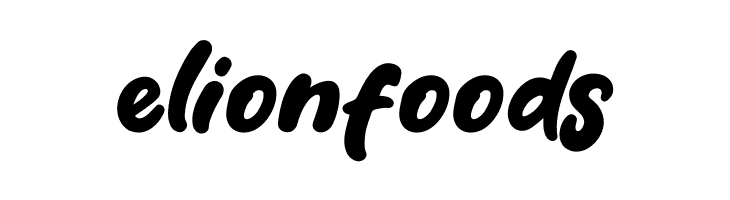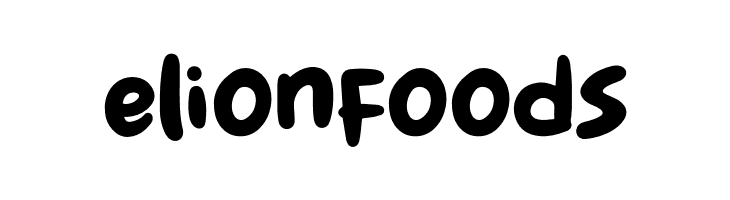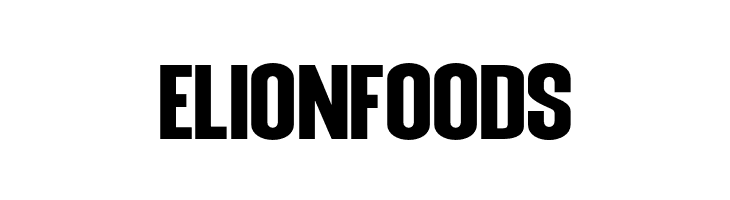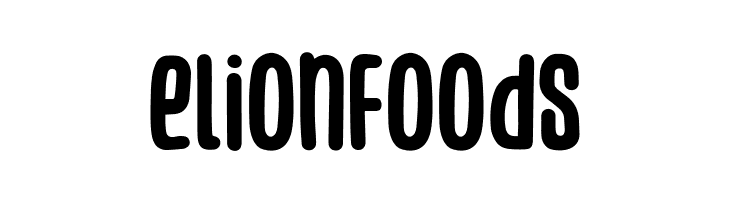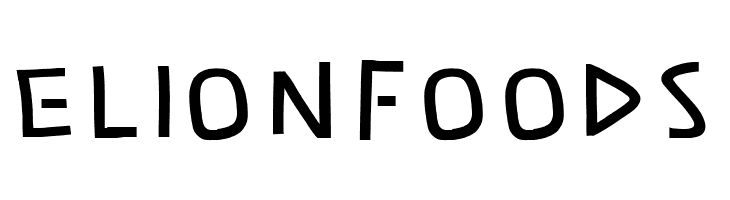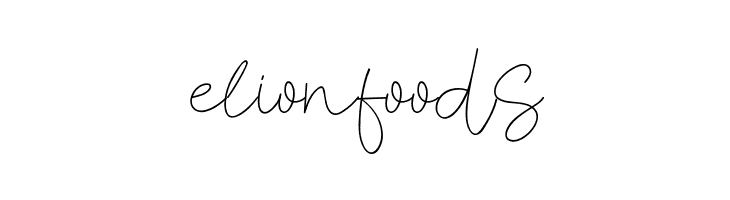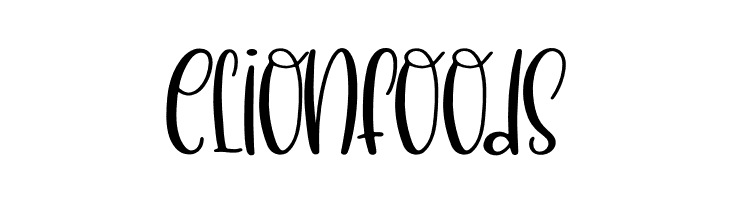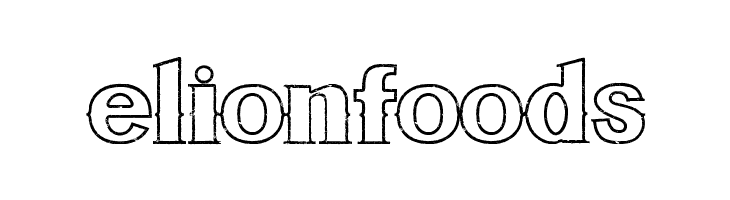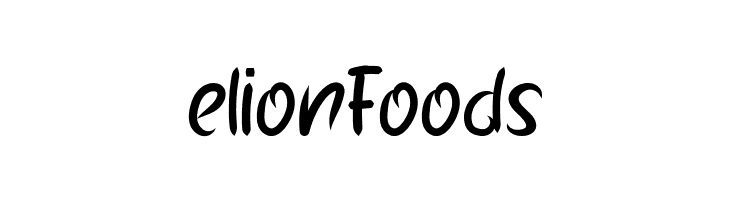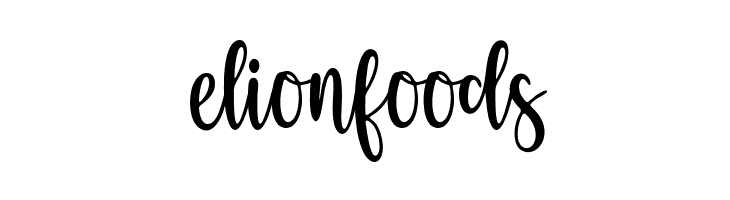
A bold, expressive script font with fluid, interconnected strokes.
A playful, bold font with rounded, bubbly characters and a hand-drawn feel.
A bold, modern font with strong lines and wide spacing.
A bold, playful font with rounded edges and a whimsical style.
A playful, hand-drawn font with bold, rounded strokes and an informal style.
A cursive, handwritten font with elegant loops and smooth curves.
A playful, hand-drawn font with tall, narrow characters and a dynamic flow.
A bold, outlined decorative font with a playful and artistic style.
A playful, handwritten-style font with bold, dynamic strokes.
A playful and whimsical script font with a hand-drawn quality.